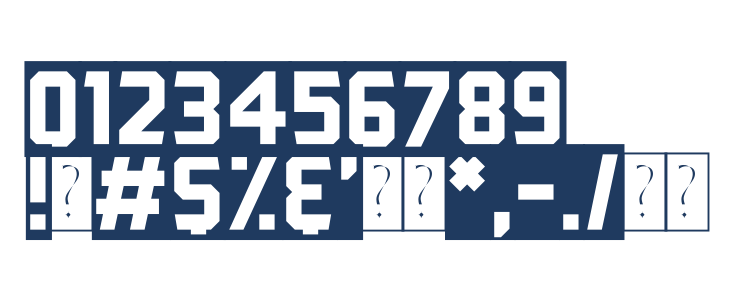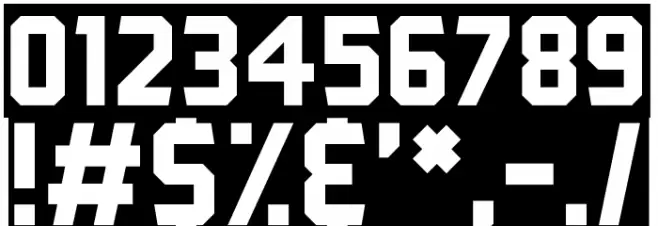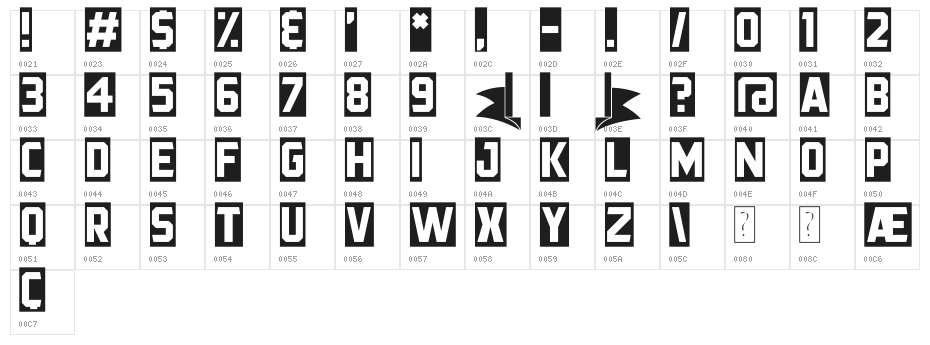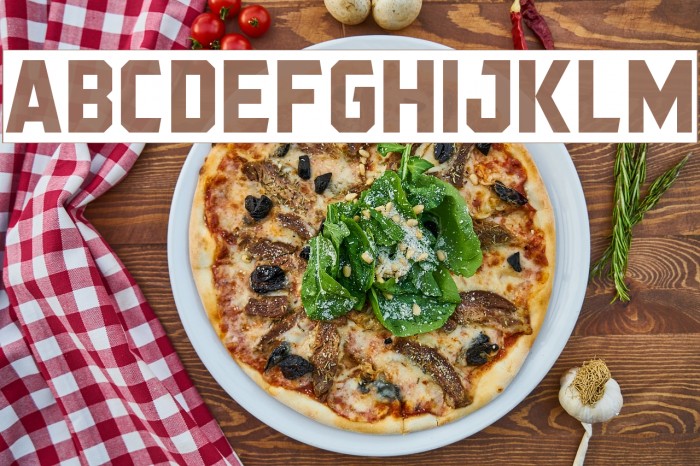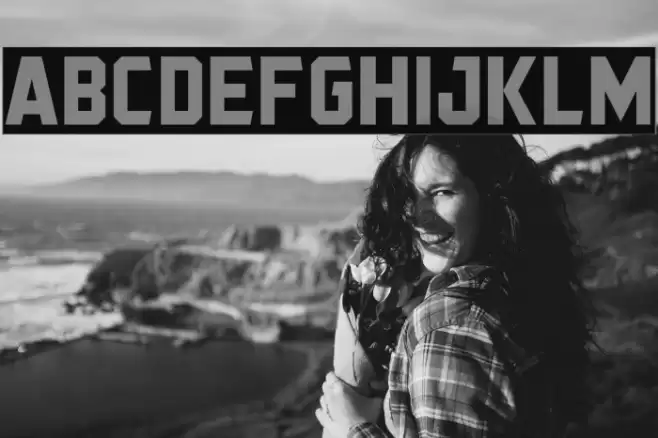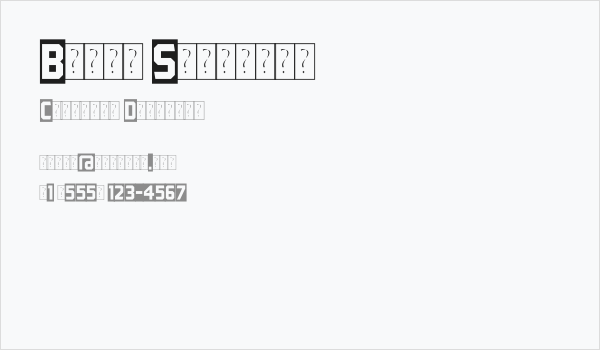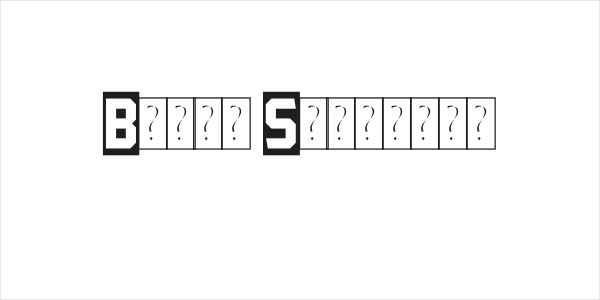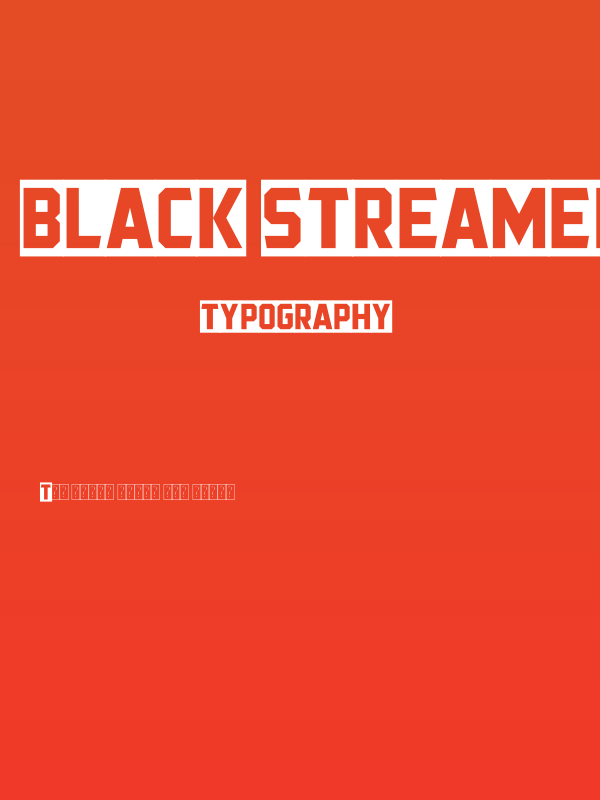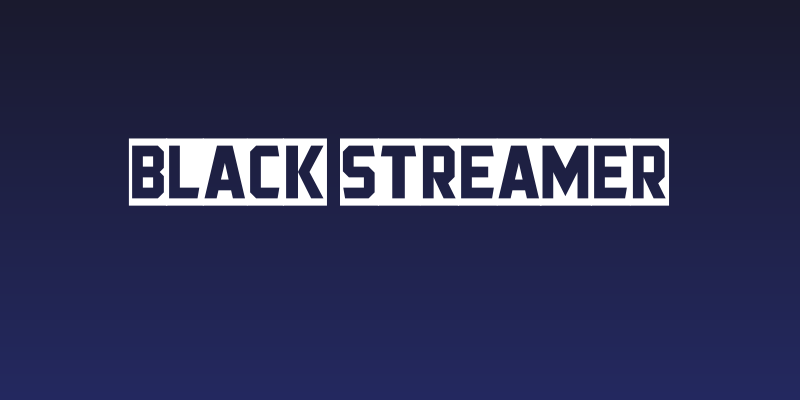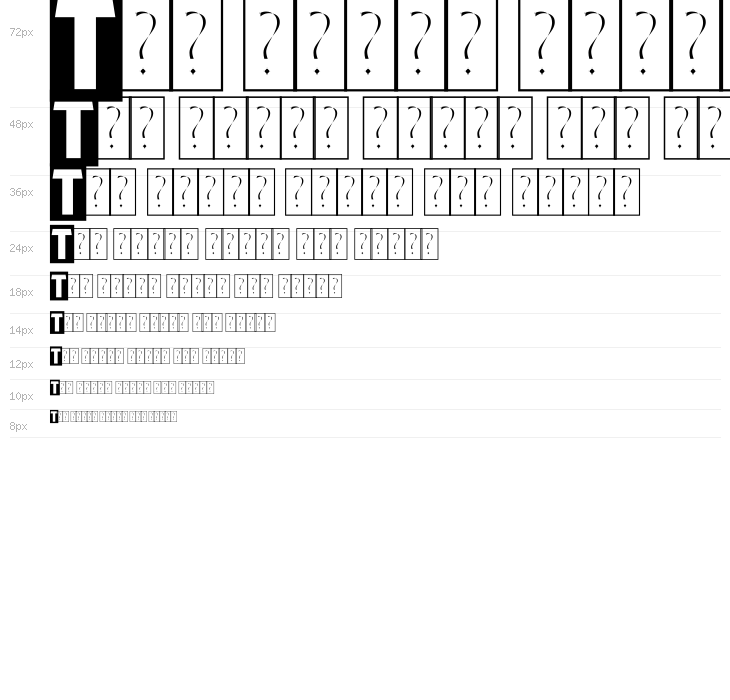
Black Streamer Font
Black Streamer Description
This font features a bold, geometric design with strong, angular lines and a modern aesthetic. The characters are uniformly wide, giving a sense of stability and strength. Each letter and number is crafted with precision, showcasing a blocky, industrial style that is both eye-catching and assertive. The uppercase and lowercase letters maintain a consistent height, contributing to a cohesive look. The numerals and special characters are designed to match the boldness of the alphabet, ensuring a harmonious appearance across all text. This font is ideal for projects that require a strong visual impact, such as posters, banners, and signage.
| Proposed Projects | Ideal for posters, banners, signage, and any project needing a strong visual impact. |